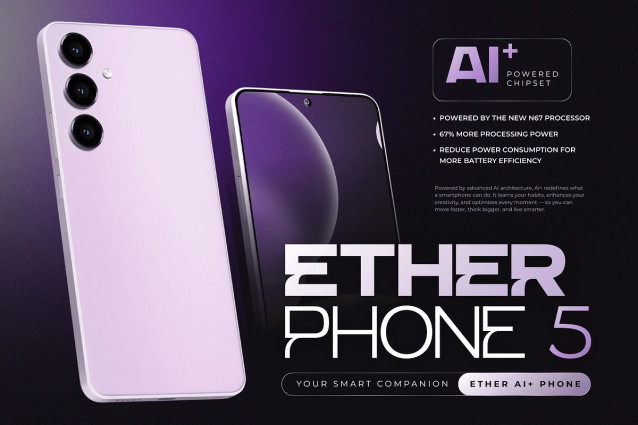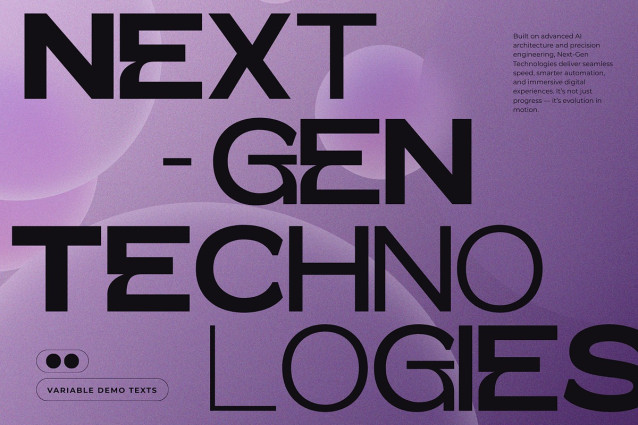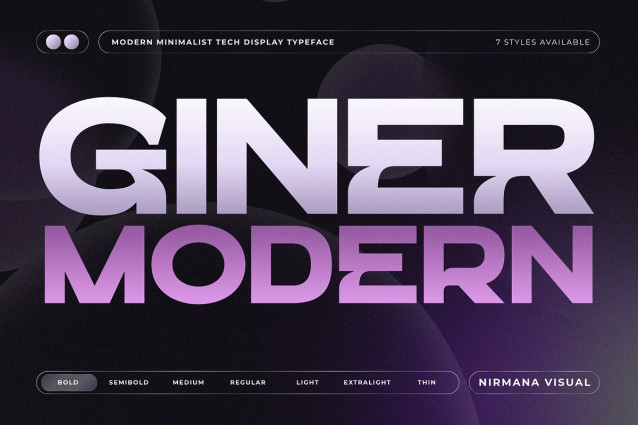
Giner Font
Giner Font is a contemporary sans-serif font family designed for strong corporate branding and modern logo design. Built with clean geometry and balanced proportions, it delivers clarity, professionalism, and versatility across print and digital media. The family includes 7 weights : Thin, Extra Light, Light, Regular, Medium, Semi Bold, and Bold, allowing flexible hierarchy and consistent brand identity. Giner Modern brings a sleek, confident, and timeless look to corporate visuals, marketing materials, and brand systems.